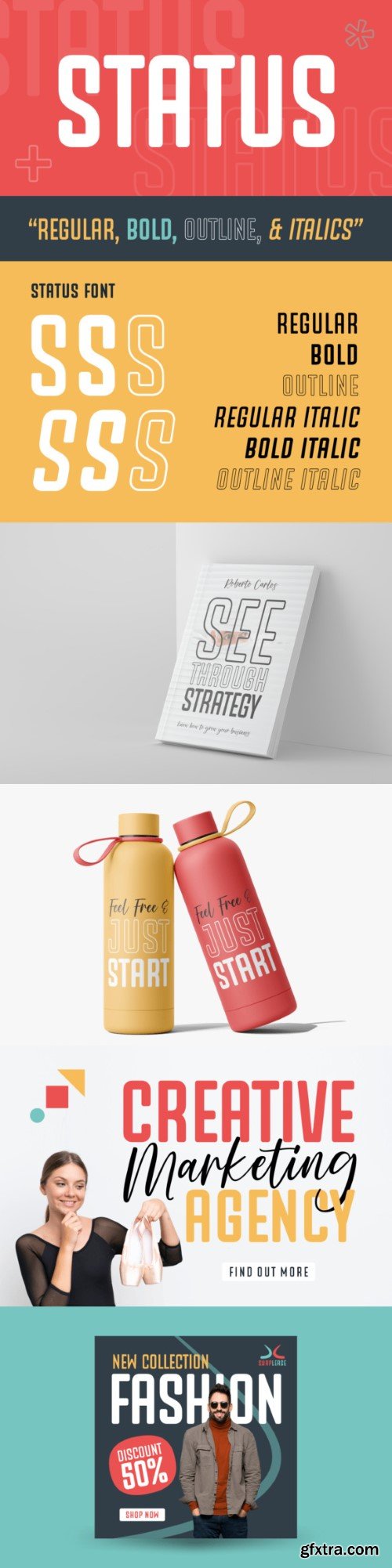
状态字体
Experience the enchanting allure of Status – a dynamic sans-serif marvel that radiates adaptability in every curve and line. With its spectrum of six unique styles – Regular, Bold, Outline, and Italics, Status caters to the varied creative desires of designers worldwide. Its globally inspired design embraces multilingual inputs, including a comprehensive range of Eastern European characters, enhancing its worldwide appeal. Whether you’re crafting striking headlines, creating compelling posters, or designing impressive magazines, Status Font infuses extraordinary charm into every piece, granting it an exceptional visual appeal. Enrich your design experience with this extraordinary testament of typographic artistry.